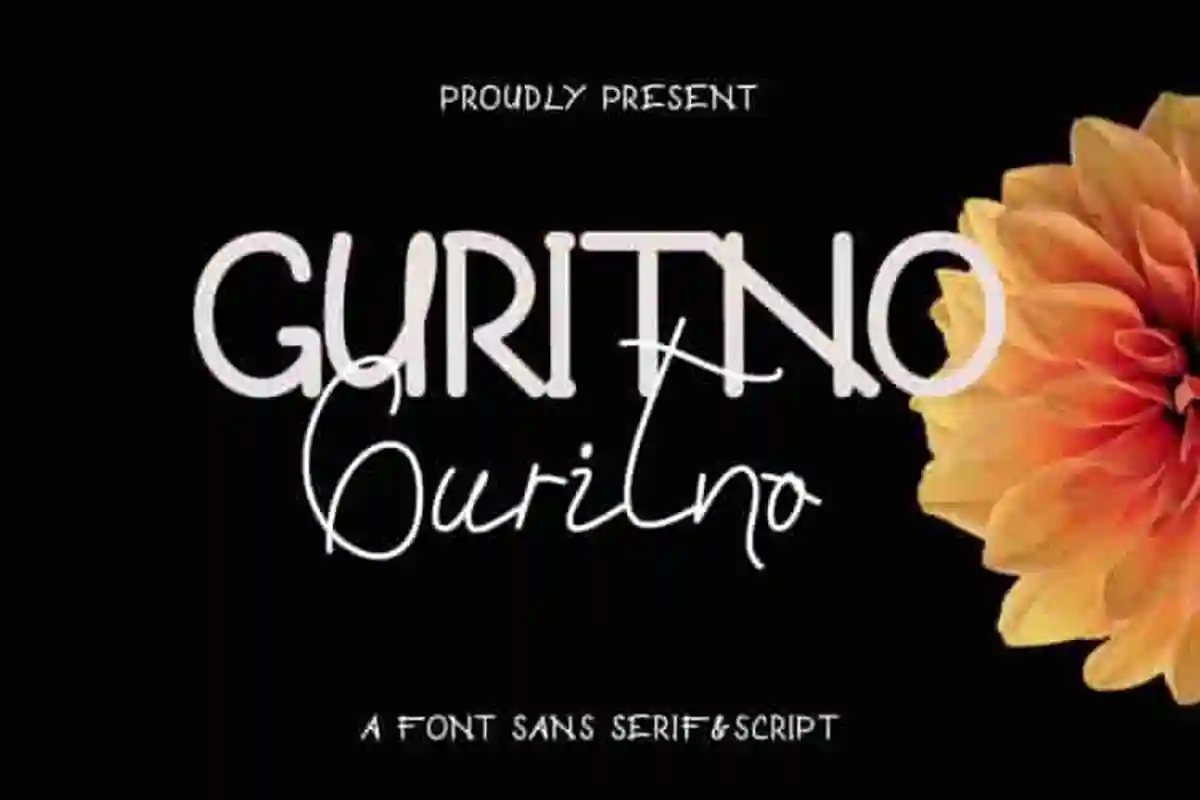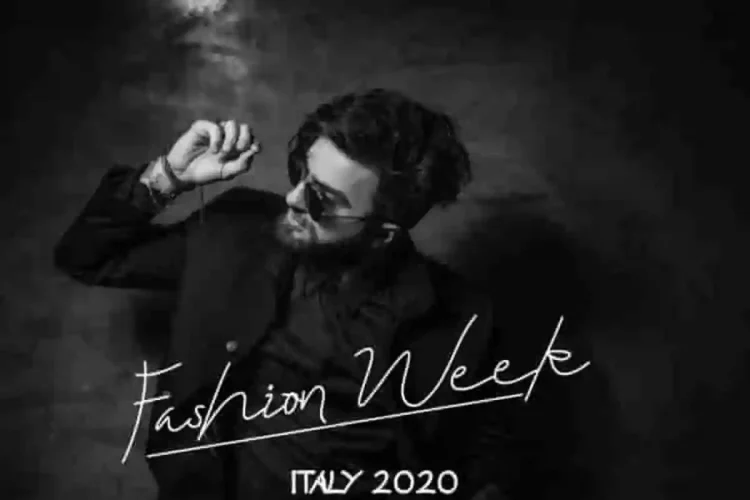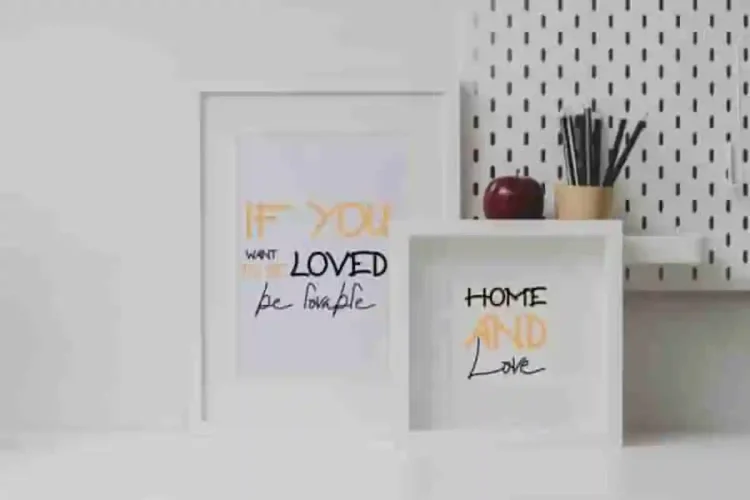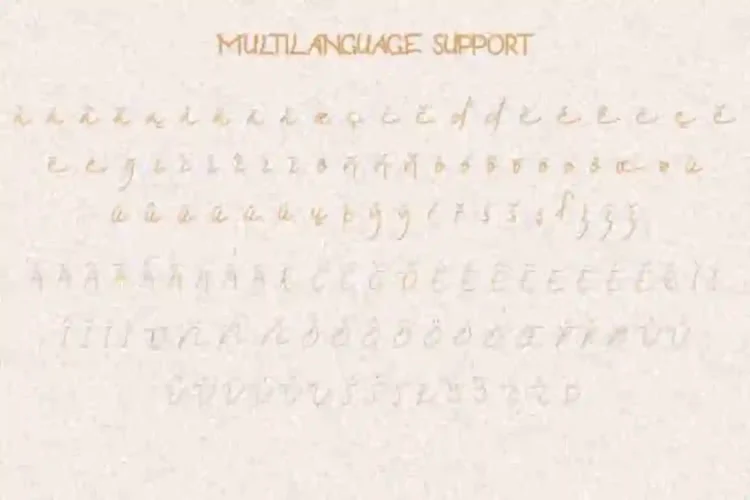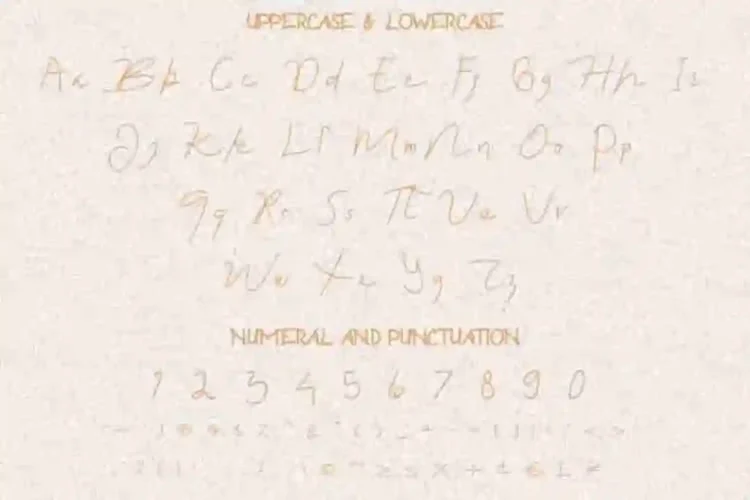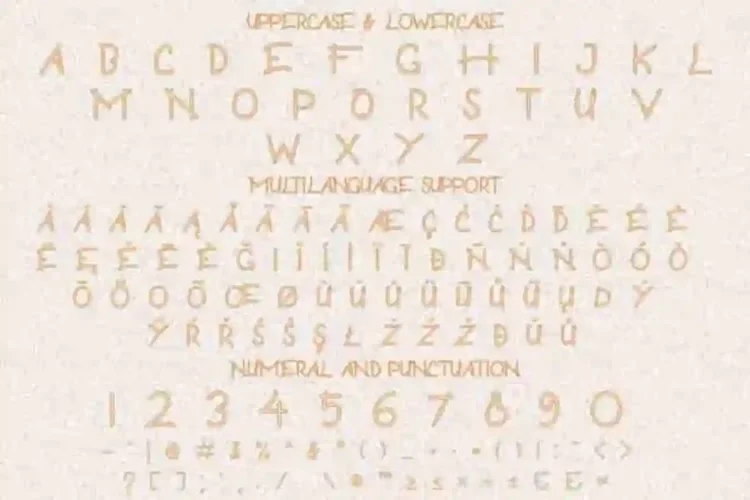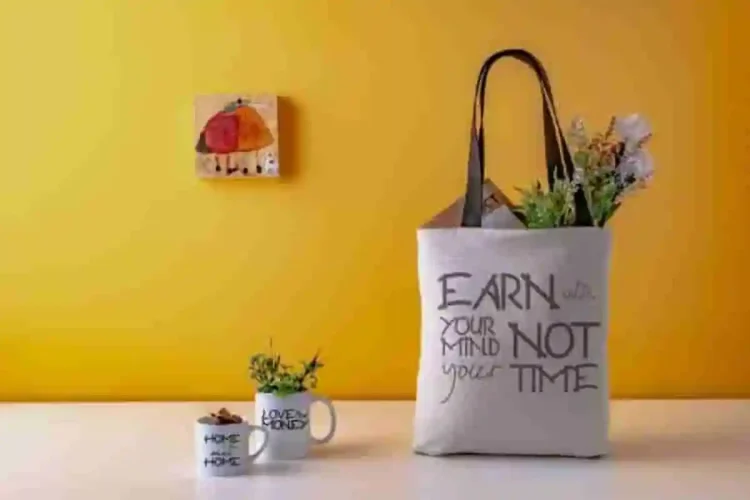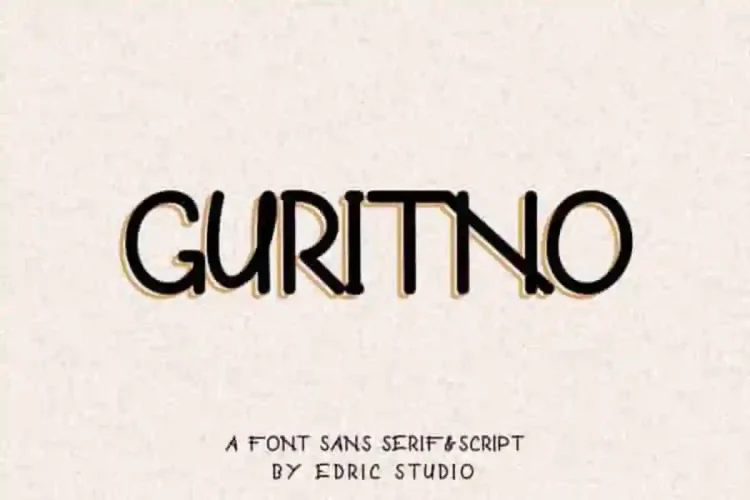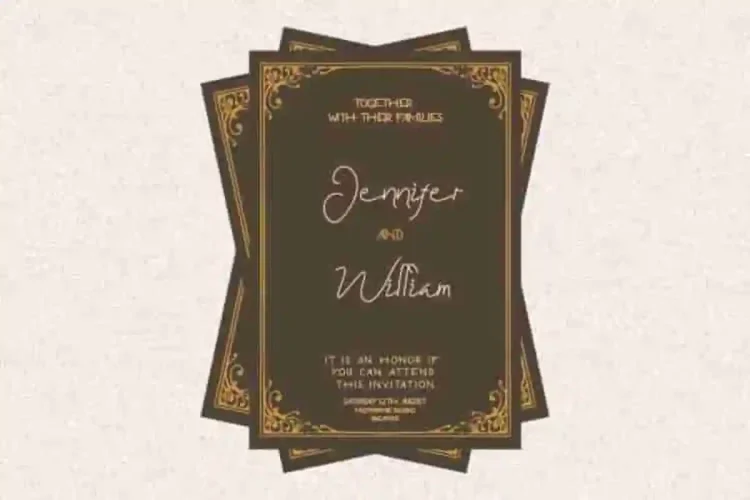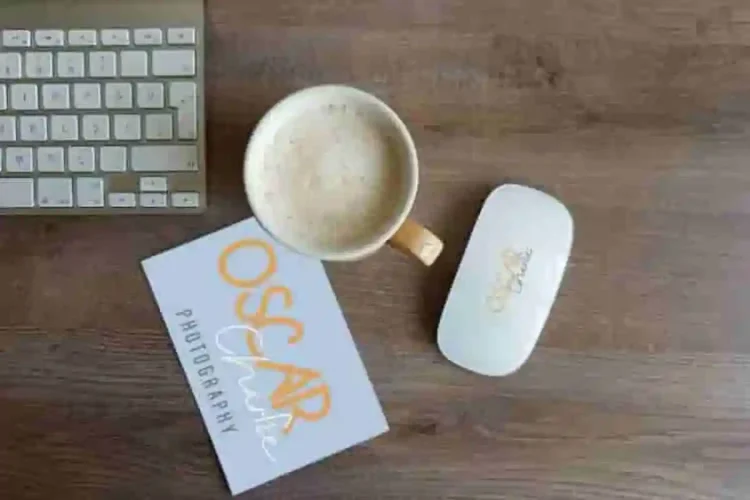
Guritno Display Script Font Duo
The newest font from our studio : Guritno Display Script Font Duo
This is a font duo, handcrafted from our Studio here in, Indonesia. The artists/designers of this beautiful tyeface is Yasri and Sarah .
Guritno Font Display Script Duo is an exclusive typeface with three different styles. This font has a stunning characters set, perfectly managed with well spaced and kerning. The styles of this font are regular sans serif display, outline style and handwriting script. The theme style of this font will elegant,  vintage, stylish, sophisticated, fancy and classic.
Guritno Font Display Script Duo will be great for any projects including : branding, logo, stationery, business card, signage, flyer, brochure, movie, music etc. Almost all industries will be match for this typeface: wedding, events, real estate, architect, law firm, florist, gardening, makeup artist, travel, hotel, musician etc.